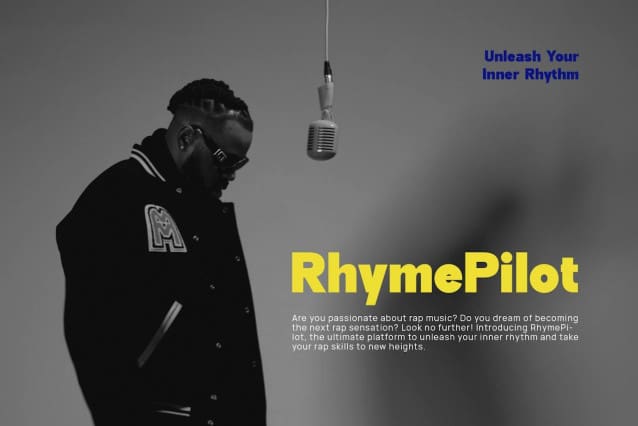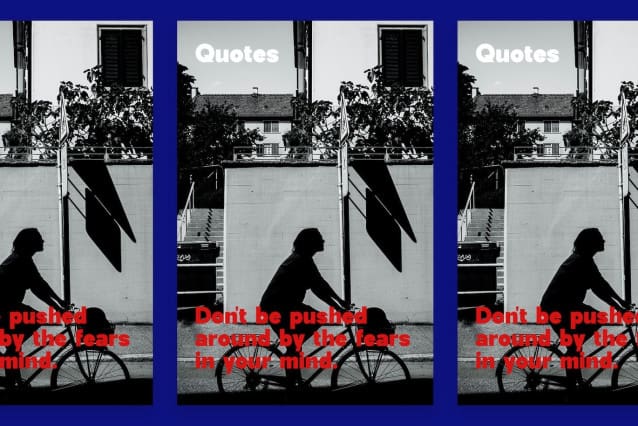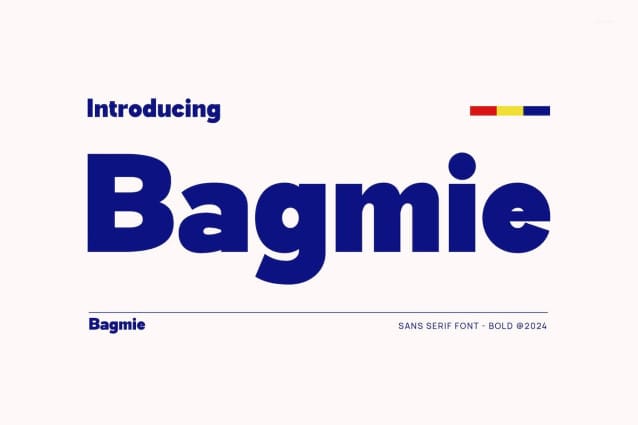
Bagmie Font
Bagmie Font, a modern sans serif font with an elegant style, perfect for brands, logos, invitations, magazines, product packaging and more.